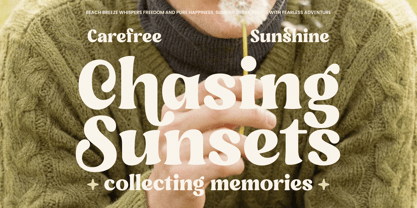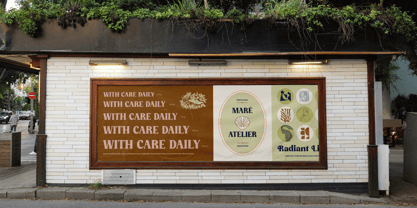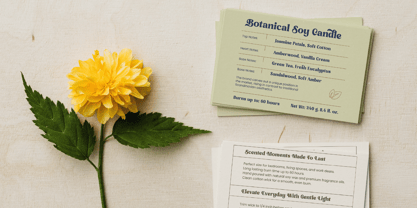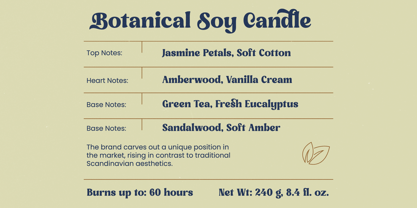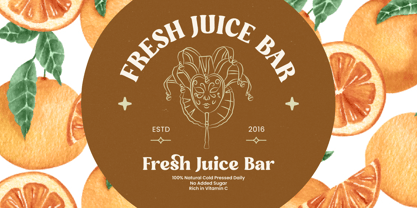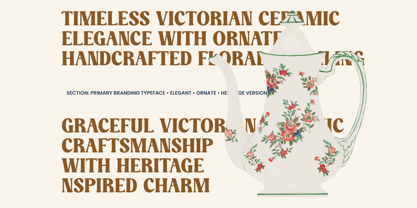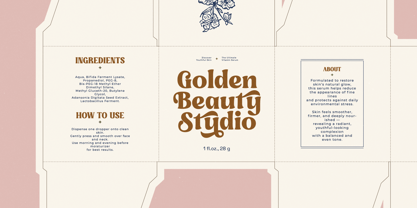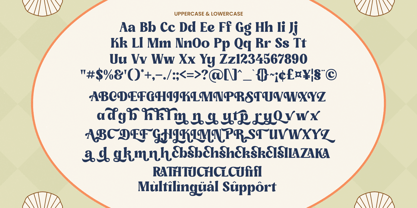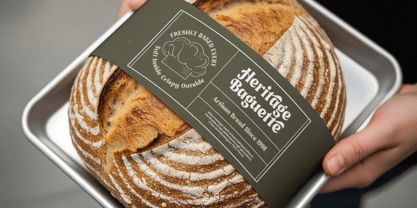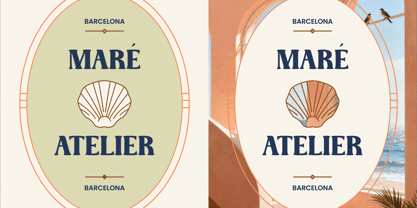
Crafted Pottery
by Timelesstype Studio
The Crafted Pottery Font Family was designed by Heru Utama Putra and published by Timelesstype Studio. Crafted Pottery contains 2 styles and family package options. More about this family
Crafted Pottery is a bold vintage serif display typeface designed to bring warmth, character, and timeless charm to your creative projects. Inspired by classic heritage branding and handcrafted aesthetics, this typeface combines strong letterforms with soft curves and subtle retro detailing, making it perfect for logos, packaging, labels, posters, café branding, artisan products, and editorial headlines. Its confident structure and vintage personality allow designers to create authentic, nostalgic visuals while maintaining modern readability. Featuring 73 alternates and 21 ligatures, Crafted Pottery provides flexible typographic options for distinctive compositions and expressive layouts. Ideal for brands seeking a bold serif with a handcrafted vintage feel, this font delivers personality, confidence, and enduring style across both print and digital applications.